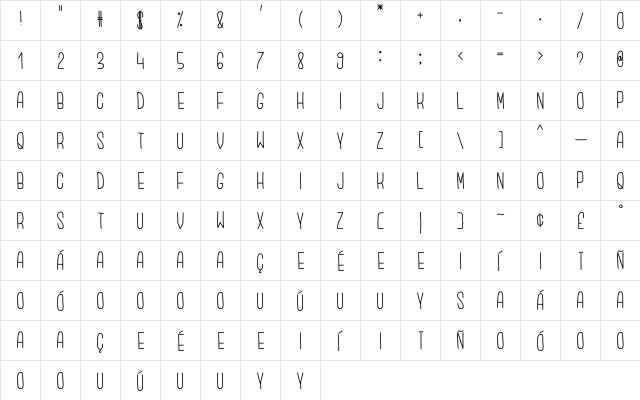
Amelie Camille Regular
Design Context for Amelie Camille Typeface
Amelie Camille is a composed and adaptable typeface that performs quietly and consistently across a wide range of design contexts.